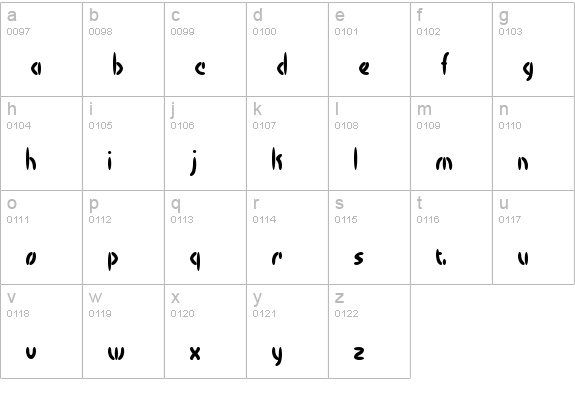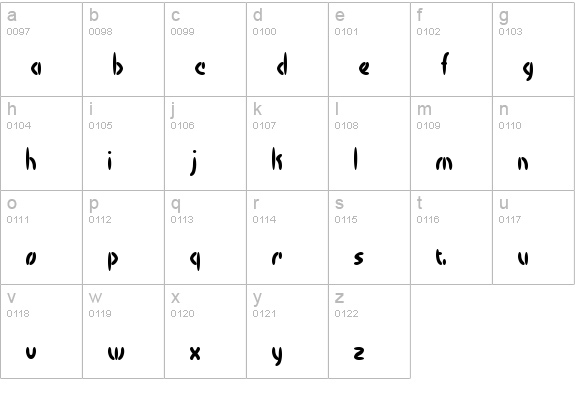
Bocuma BRK Font Details
Bocuma BRK font is a versatile and modern typeface that exudes elegance and sophistication. With its clean lines and stylish design, this font is perfect for a wide range of projects, from branding to editorial design. The sleek and contemporary look of Bocuma BRK font makes it an excellent choice for logos, headlines, and other display purposes. The best part about Bocuma BRK font is that it is completely free to use. That's right, you can download this stunning font at FontsMarket.com at no cost at all. Whether you're a designer looking to add a touch of class to your work or a business owner in need of a fresh new look for your brand, Bocuma BRK font is the perfect choice. Download it today and see for yourself how this font can elevate your designs to the next level.